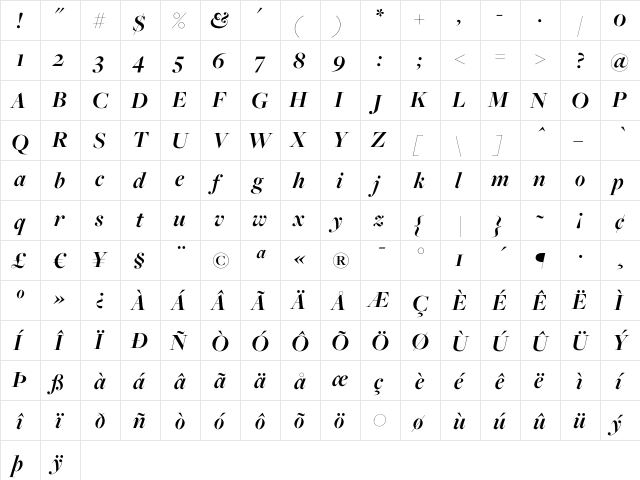
Freight Big Bold Italic
Design Context for Freight Typeface
Freight is a composed and adaptable typeface that performs quietly and consistently across a wide range of design contexts. The slanted form adds forward momentum and visual energy. Its bold stroke weight gives it real presence on the page.
Pro Tip: Try Freight for annotation and caption copy alongside an upright companion — the contrast in angle creates a dynamic but ordered typographic system.